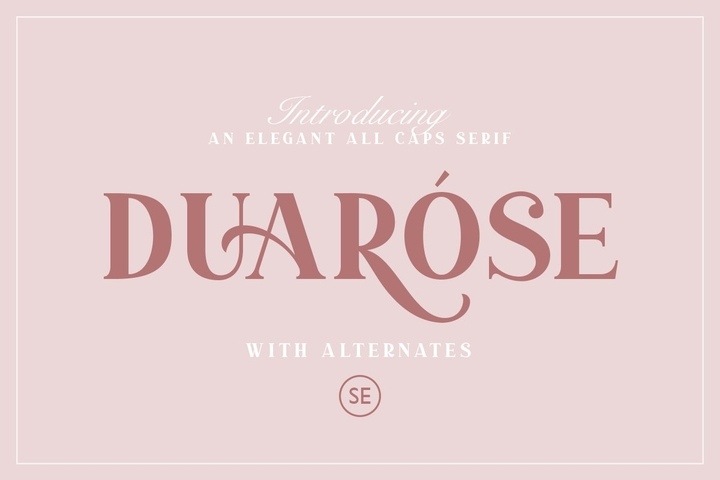
Duarose Font
Duarose Font is perfectly suited for romantic wedding invitations, elegant floral branding, luxury beauty product labels, sophisticated greeting cards, feminine boutique signage, garden center marketing, perfume packaging designs, romantic restaurant menus, and enchanting storytelling applications.
What makes Duarose Font so exciting is its exquisite romantic elegance and floral sophistication that captures the delicate beauty of blooming roses while creating an atmosphere of timeless femininity through every gracefully designed letterform. This enchanting typeface embodies the essence of romantic gardens with its flowing curves and elegant proportions that evoke images of morning dew on rose petals and the gentle whisper of spring breezes through flowering meadows. The font's distinctive character shapes and harmonious styling create an immediate sense of romance and natural beauty that resonates with audiences who appreciate the intersection of nature's artistry and human creativity. Duarose Font stands out through its ability to convey romantic sophistication, natural beauty, and feminine elegance, making it perfect for projects that need to establish emotional connections while celebrating the timeless appeal of romance, beauty, and the eternal charm of floral artistry.
The Duarose Font family includes Light, Regular, Medium, and Bold weights, each maintaining the font's distinctive romantic character while providing design flexibility for various elegant applications. The family also features floral alternates, decorative swashes, and botanical elements that enhance the font's romantic appeal and provide comprehensive solutions for sophisticated feminine design projects.
When you choose Duarose Font Free Download, you're selecting a typeface that brings authentic romantic elegance and floral sophistication to your creative projects. This font excels in creating designs that need to convey femininity, romance, and natural beauty. Its elegant floral appearance makes it particularly effective for wedding industry brands, beauty companies, and romantic projects that want to capture the essence of timeless elegance and natural charm.
The technical craftsmanship of Duarose Font includes an extensive character set with uppercase and lowercase letters, numerals, punctuation marks, and romantic symbols that maintain the font's elegant character. The font incorporates advanced OpenType features including contextual alternates and flowing ligatures that create seamless romantic typography and authentic floral beauty throughout extended text applications.
Whether you're designing wedding materials, creating romantic brand identities, developing beauty product packaging, or crafting designs that require feminine sophistication and romantic elegance, Duarose Font delivers the perfect combination of floral authenticity and contemporary functionality that makes your projects romantically compelling and beautifully memorable for audiences seeking genuine romance and natural elegance.